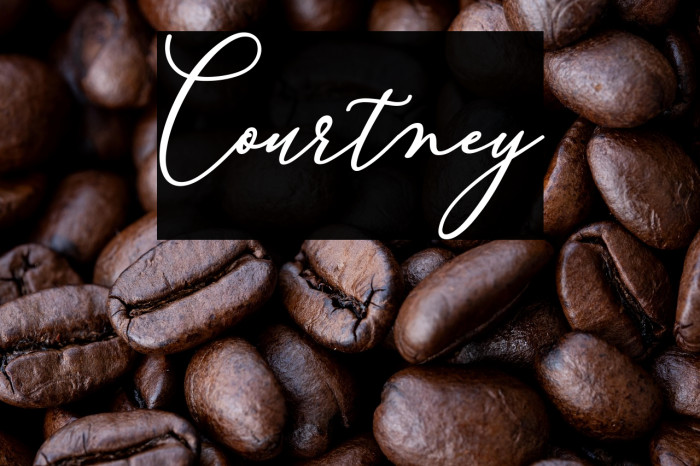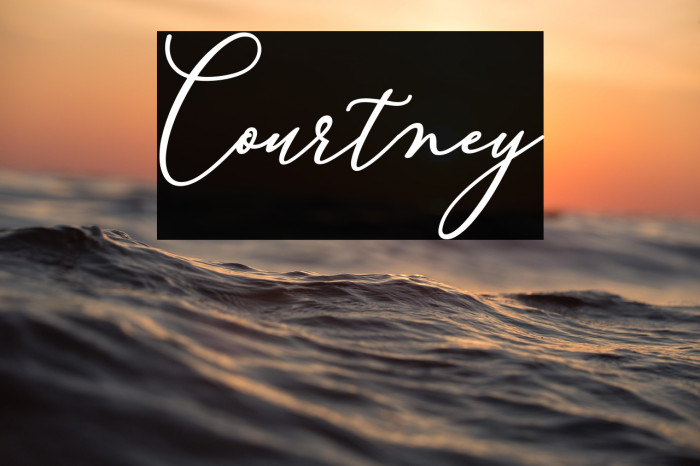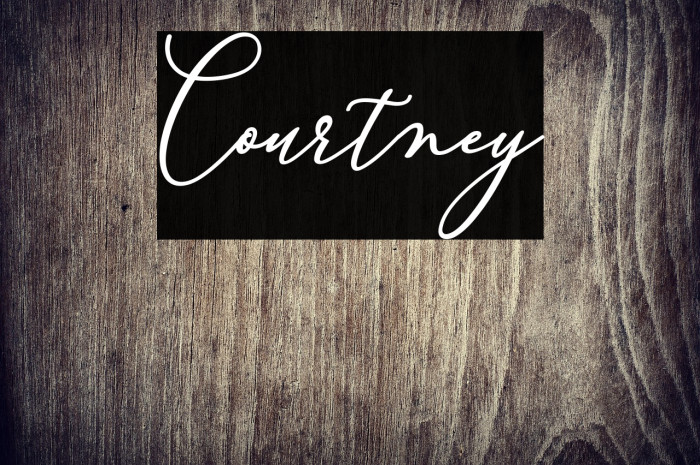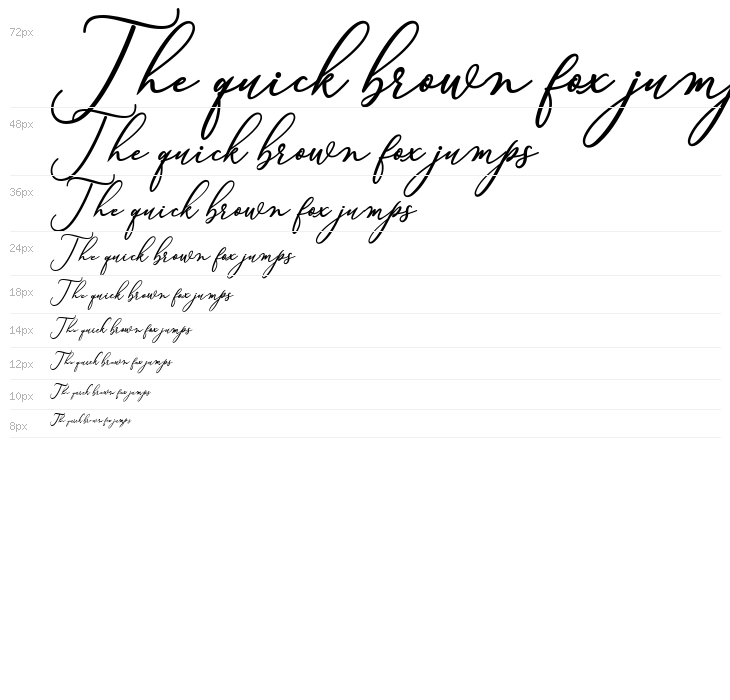
Courtney Font
Courtney Description
This elegant script font features a flowing, cursive style that exudes sophistication and grace. The uppercase letters are tall and slender, with delicate loops and flourishes that add a touch of refinement. The lowercase letters maintain a consistent slant, creating a harmonious and fluid appearance. The numerals are stylishly curved, complementing the overall aesthetic. This font's intricate design makes it ideal for formal invitations, branding, and decorative purposes. Its artistic flair is perfect for projects that require a touch of elegance and class.
| Proposed Projects | Ideal for wedding invitations, elegant branding, greeting cards, and decorative signage. |